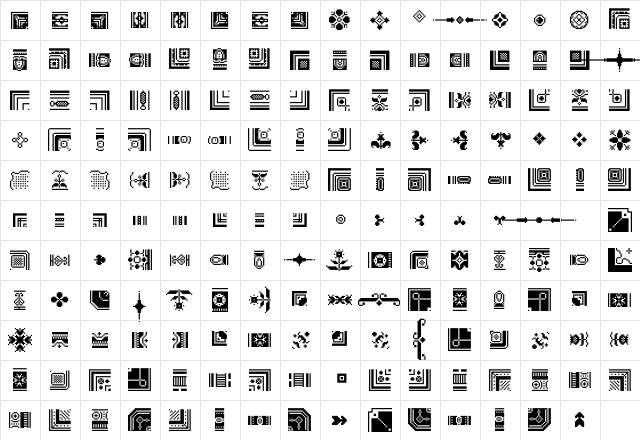
Bit KitOrnaments Regular
Design Context for Bit KitOrnaments Typeface
Bit KitOrnaments brings ornamental detail and strong personality to headlines and identities, where visual impact matters more than quiet functionality.
Font Pairing: Pair with a clean neutral sans-serif for body copy to let Bit KitOrnaments's character lead without overwhelming the composition.
Pro Tip: Treat Bit KitOrnaments as the centrepiece of your typographic hierarchy. One strong heading set in a decorative face can carry an entire layout.